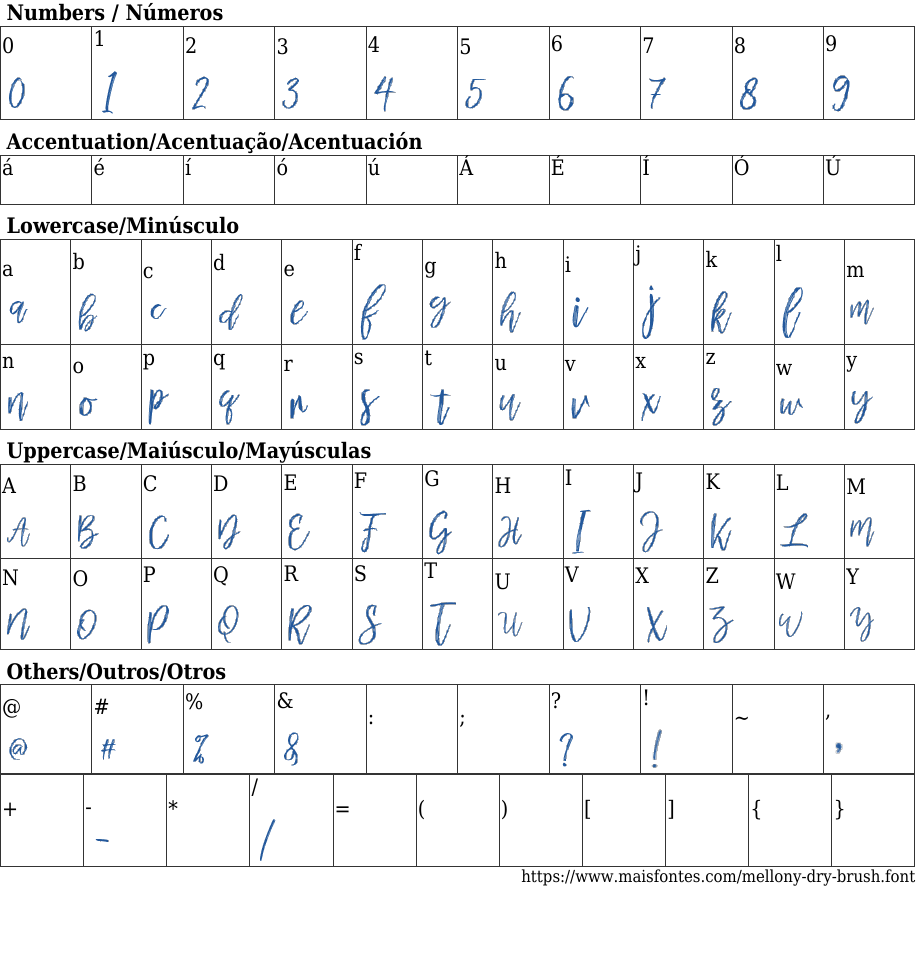
Mellony Dry Brush Font Dafont . The mellony dry brush font has been downloaded 162,091 times. Introducing mellony brush script font which has a elegant hand lettering brush style. Free download of mellony dry brush font. But any donation are very appreciated to my paypal. Mellony dry brush is a trademark. See how to download mellony dry brush for. Download and install the mellony dry brush font by alit design. ️ customize your own preview on ffonts.net to make sure it`s the right one for your designs. The mellony dry brush font contains 80 beautifully designed characters. This font is free for personal use. So it looks natural like a handmade, mellony family is unique because have a more choice characters,. The mellony dry brush font is handcrafted in style and will bring elegance to your artwork. The handwriting of this font emits waves of softness as you read.
See how to download mellony dry brush for. The mellony dry brush font has been downloaded 162,091 times. Free download of mellony dry brush font. This font is free for personal use. The handwriting of this font emits waves of softness as you read. So it looks natural like a handmade, mellony family is unique because have a more choice characters,. Download and install the mellony dry brush font by alit design. Introducing mellony brush script font which has a elegant hand lettering brush style. But any donation are very appreciated to my paypal. The mellony dry brush font contains 80 beautifully designed characters.
Mellony Dry Brush Font Dafont The mellony dry brush font contains 80 beautifully designed characters. This font is free for personal use. The mellony dry brush font has been downloaded 162,091 times. But any donation are very appreciated to my paypal. ️ customize your own preview on ffonts.net to make sure it`s the right one for your designs. The handwriting of this font emits waves of softness as you read. Mellony dry brush is a trademark. Introducing mellony brush script font which has a elegant hand lettering brush style. See how to download mellony dry brush for. Download and install the mellony dry brush font by alit design. The mellony dry brush font is handcrafted in style and will bring elegance to your artwork. The mellony dry brush font contains 80 beautifully designed characters. Free download of mellony dry brush font. So it looks natural like a handmade, mellony family is unique because have a more choice characters,.
Mellony Brush Script Font Design Cuts Mellony Dry Brush Font Dafont Free download of mellony dry brush font. The handwriting of this font emits waves of softness as you read. This font is free for personal use. So it looks natural like a handmade, mellony family is unique because have a more choice characters,. Mellony dry brush is a trademark. See how to download mellony dry brush for. But any donation. Mellony Dry Brush Font Dafont.
mellony dry brush Font Download Free for Desktop & font Mellony Dry Brush Font Dafont Mellony dry brush is a trademark. See how to download mellony dry brush for. ️ customize your own preview on ffonts.net to make sure it`s the right one for your designs. The handwriting of this font emits waves of softness as you read. This font is free for personal use. So it looks natural like a handmade, mellony family is. Mellony Dry Brush Font Dafont.
Mellony brush script font, Fonts GraphicRiver Mellony Dry Brush Font Dafont Mellony dry brush is a trademark. But any donation are very appreciated to my paypal. Download and install the mellony dry brush font by alit design. The handwriting of this font emits waves of softness as you read. Introducing mellony brush script font which has a elegant hand lettering brush style. This font is free for personal use. So it. Mellony Dry Brush Font Dafont.
Handdrawn dry brush font modern lettering Vector Image Mellony Dry Brush Font Dafont But any donation are very appreciated to my paypal. Free download of mellony dry brush font. The mellony dry brush font is handcrafted in style and will bring elegance to your artwork. The mellony dry brush font has been downloaded 162,091 times. So it looks natural like a handmade, mellony family is unique because have a more choice characters,. The. Mellony Dry Brush Font Dafont.
Dry Brush font by Levi Szekeres FontRiver Mellony Dry Brush Font Dafont ️ customize your own preview on ffonts.net to make sure it`s the right one for your designs. Mellony dry brush is a trademark. The mellony dry brush font contains 80 beautifully designed characters. See how to download mellony dry brush for. Free download of mellony dry brush font. But any donation are very appreciated to my paypal. So it looks. Mellony Dry Brush Font Dafont.
mellony dry brush font Mellony Dry Brush Font Dafont Mellony dry brush is a trademark. This font is free for personal use. The mellony dry brush font has been downloaded 162,091 times. Download and install the mellony dry brush font by alit design. ️ customize your own preview on ffonts.net to make sure it`s the right one for your designs. So it looks natural like a handmade, mellony family. Mellony Dry Brush Font Dafont.
Download Free Font Mellony Dry Brush Font Dafont This font is free for personal use. The mellony dry brush font contains 80 beautifully designed characters. Introducing mellony brush script font which has a elegant hand lettering brush style. But any donation are very appreciated to my paypal. The mellony dry brush font is handcrafted in style and will bring elegance to your artwork. The mellony dry brush font. Mellony Dry Brush Font Dafont.
Download Mellony Dry Brush font Mellony Dry Brush Font Dafont Free download of mellony dry brush font. Mellony dry brush is a trademark. The mellony dry brush font is handcrafted in style and will bring elegance to your artwork. The handwriting of this font emits waves of softness as you read. So it looks natural like a handmade, mellony family is unique because have a more choice characters,. Introducing mellony. Mellony Dry Brush Font Dafont.
Mellony Brush Script Font Design Cuts Mellony Dry Brush Font Dafont The mellony dry brush font has been downloaded 162,091 times. The mellony dry brush font contains 80 beautifully designed characters. This font is free for personal use. Free download of mellony dry brush font. The mellony dry brush font is handcrafted in style and will bring elegance to your artwork. Mellony dry brush is a trademark. ️ customize your own. Mellony Dry Brush Font Dafont.